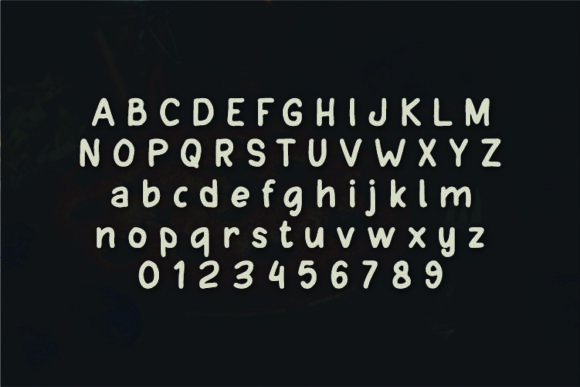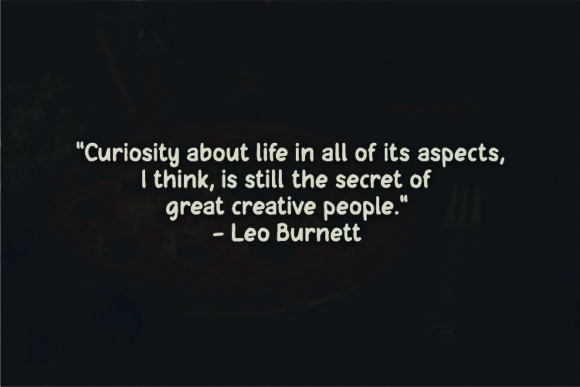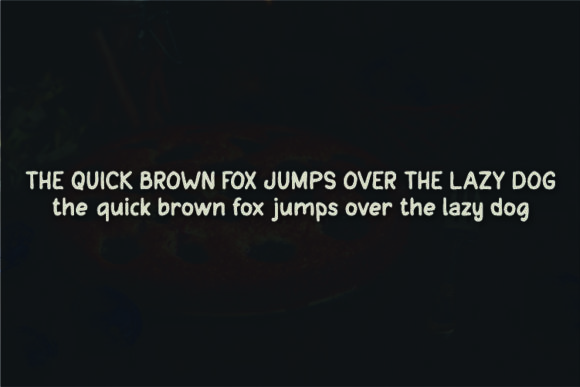
Introduction to Martorana Font
Have you ever stumbled upon that perfect font that makes your creative project come alive? I know I have, and it’s a moment that’s hard to forget. For me, that moment was when I discovered the Martorana Font, a clean and friendly handwritten font that has been a game-changer in my design process.
As a designer, I’m always on the lookout for high-quality fonts that can elevate my work and make it stand out. The Martorana Font has been a valuable addition to my design resource library, and I’ve found it to be incredibly versatile. Whether I’m working on a digital design project, creating a presentation, or making greeting cards, this font has the potential to become my go-to choice.
What sets the Martorana Font apart is its unique blend of elegance and approachability, making it perfect for a wide range of creative projects. Plus, it’s available for free download, complete with a transparent background, making it easy to incorporate into any design.
Key Features of Martorana Font
- High-quality design resource ideal for creative projects, including logos, graphics, and typography.
- Unique characteristics, including elegant and modern design elements, making it suitable for a wide range of creative projects.
- High-resolution design, suitable for both print and digital applications, ensuring crisp and clear typography.
- Designed to be versatile, allowing for easy customization and modification to fit specific design needs.
Honest Review: Martorana Font
As a designer, I’m always on the lookout for high-quality design resources to elevate my creative projects. Recently, I stumbled upon the Martorana Font, and I’m excited to share my honest review with you.
- Clean and elegant design aesthetic that’s perfect for a variety of creative projects
- High-quality glyphs and characters that render beautifully on screen and in print
- Font family is relatively small, with only a few weights and styles available
- No comprehensive language support, which may limit its use in multilingual projects
Overall, I’m impressed with the Martorana Font’s clean design and high-quality rendering. While it may not be the most comprehensive font family, it’s a great addition to any designer’s toolkit. With its free download option and transparent background, it’s an excellent resource for designers working on creative projects that require a touch of elegance.
Martorana Font
The Martorana Font is perfect for creative projects such as logos, business cards, and brochures. It’s also great for use in social media graphics, email marketing campaigns, and website design.